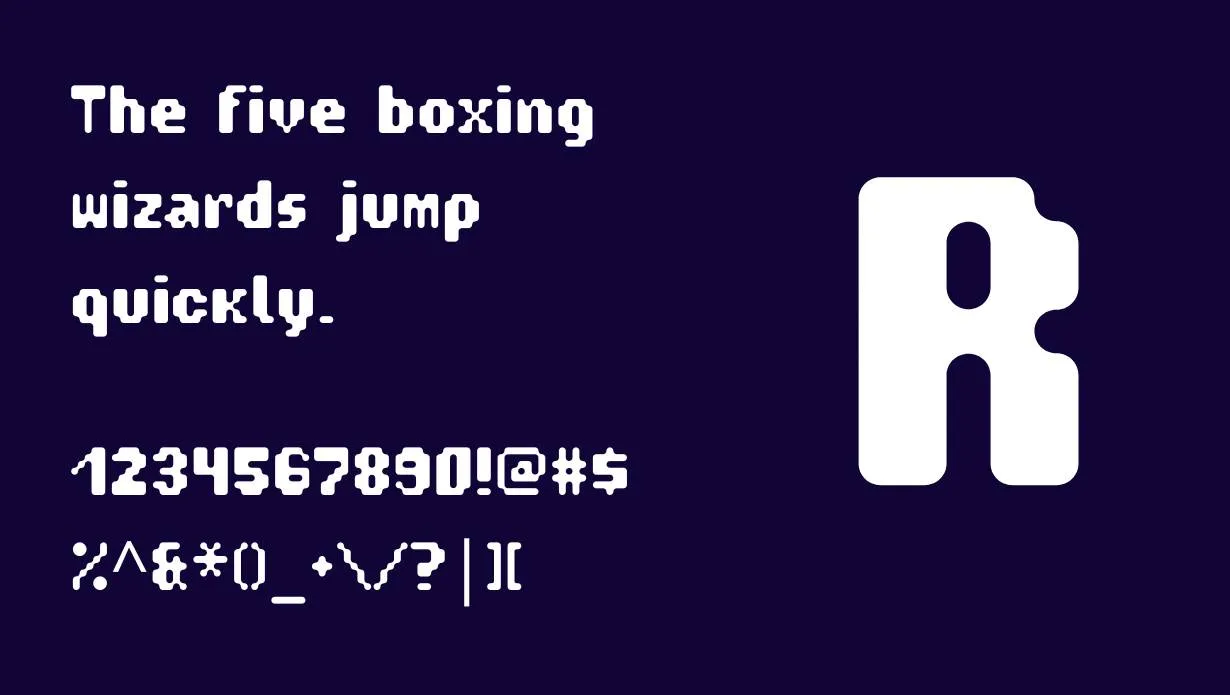
Rixel Font is a playful and dynamic typeface that brings a sense of energy to your designs. With its quirky and irregular letterforms, Rixel Font is perfect for projects that aim to convey a sense of spontaneity and creativity.
This font is well-suited for use in posters, packaging, and branding where a lively and distinctive typographic style is desired. Rixel Font’s unique characters add a touch of personality, making your text stand out and capture attention.
| Designer | Emil Blum |